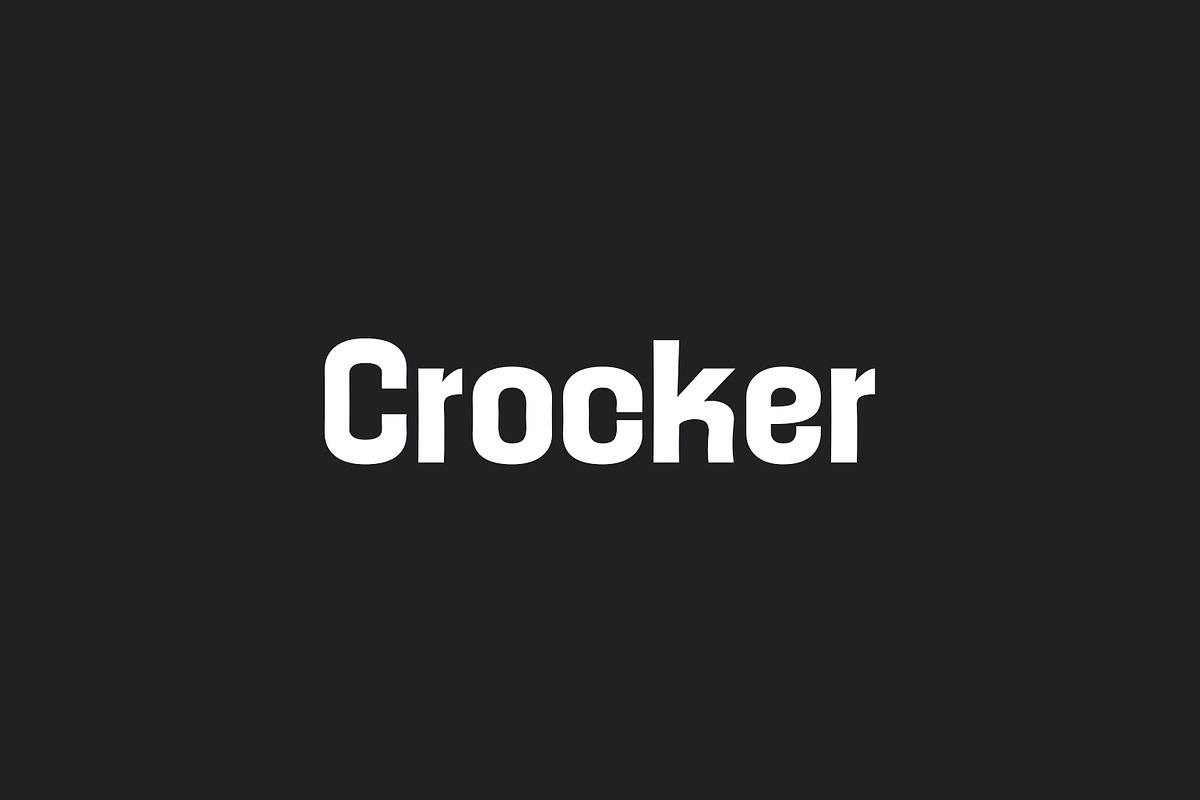
Crocker Display Typeface Free Download is a bold and stylish display font designed to make a statement. With its strong letterforms, clean lines, and modern details, it’s perfect for eye-catching headlines, posters, branding, logos, and other display purposes. Its versatility and unique structure allow it to work well across both digital and print media.
Whether you're designing for fashion, advertising, or creating a striking visual identity, Crocker adds personality and strength to your typography.